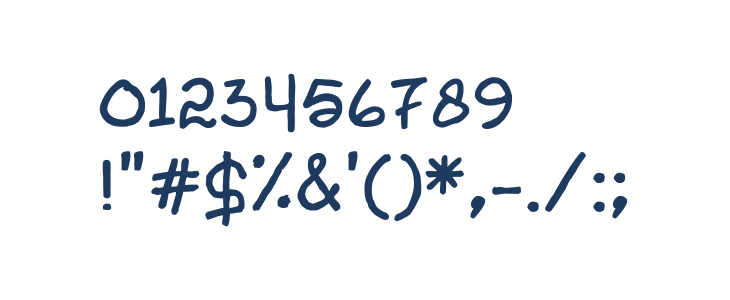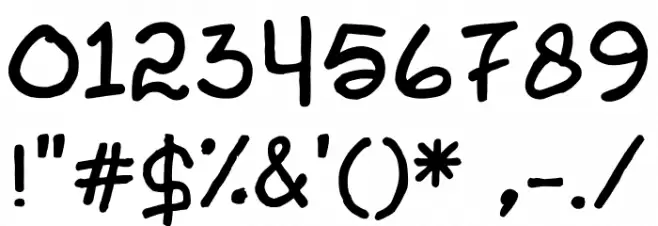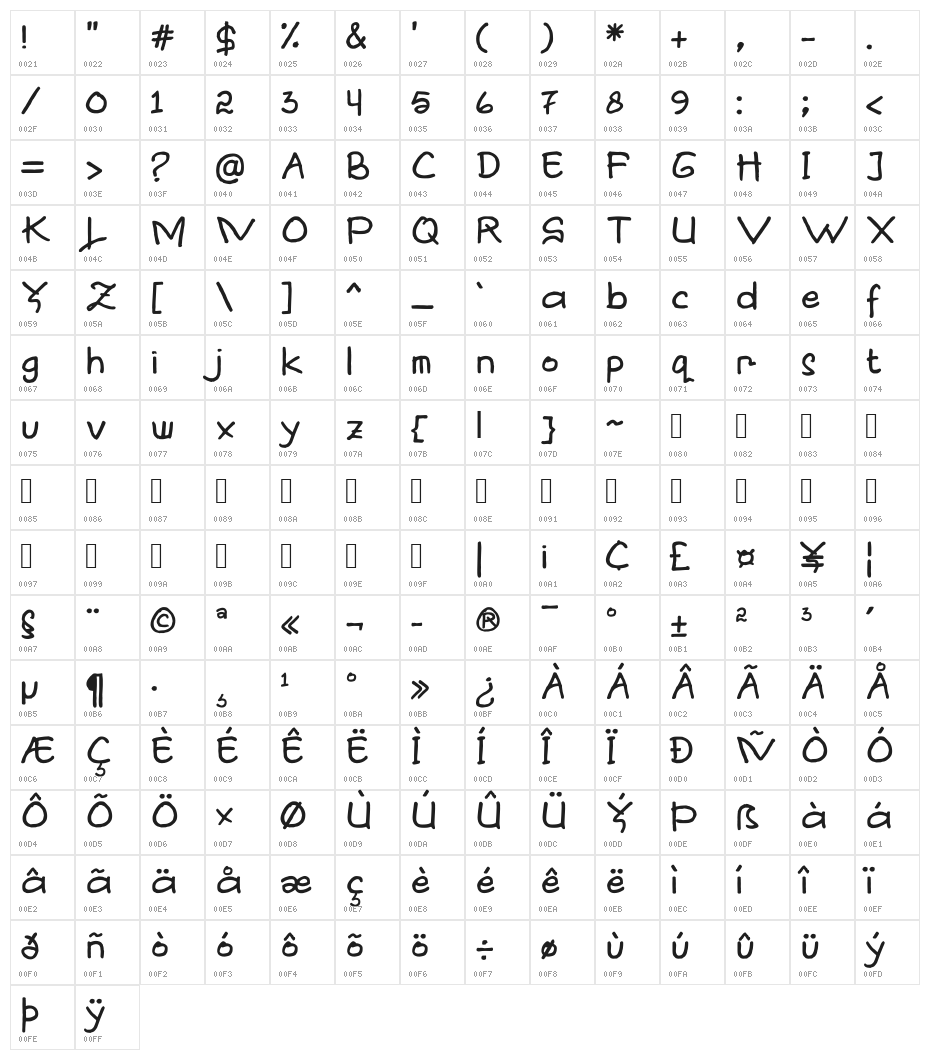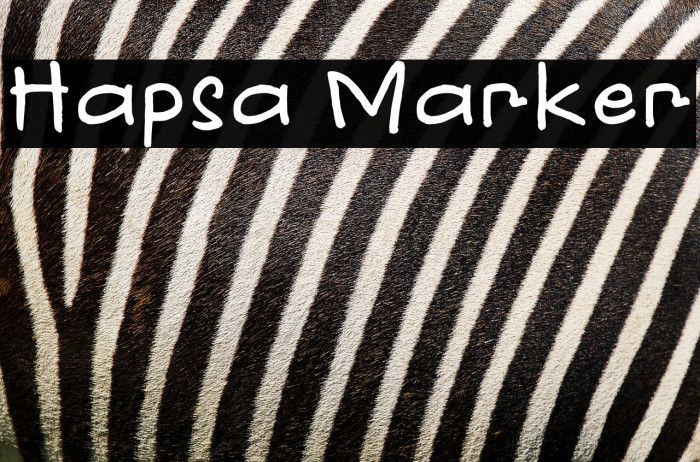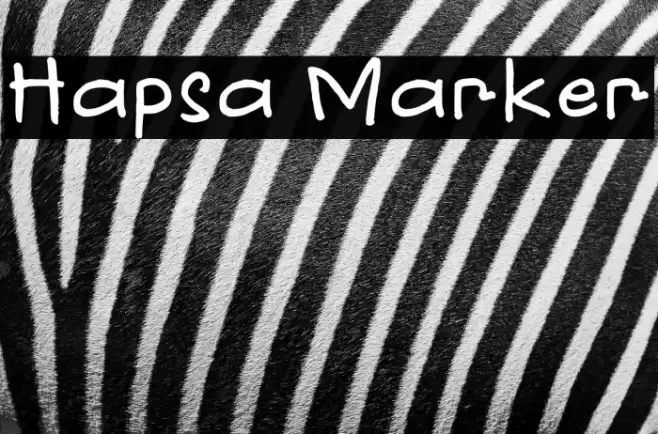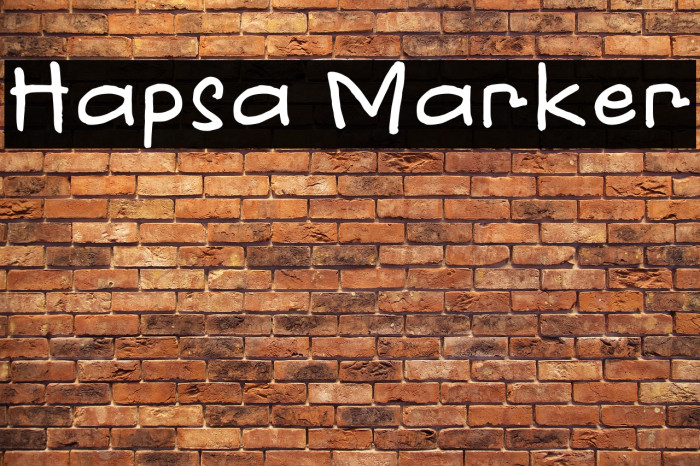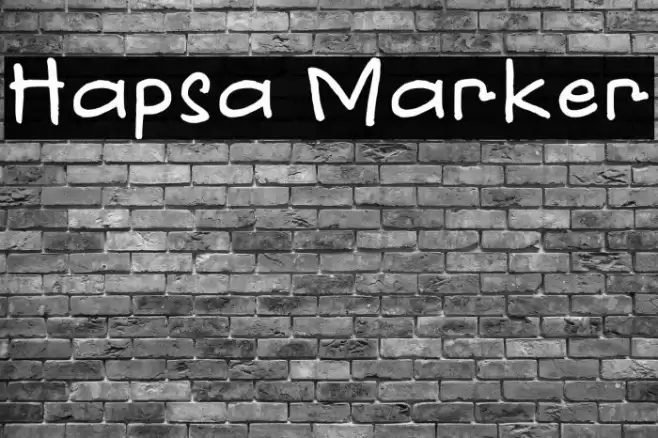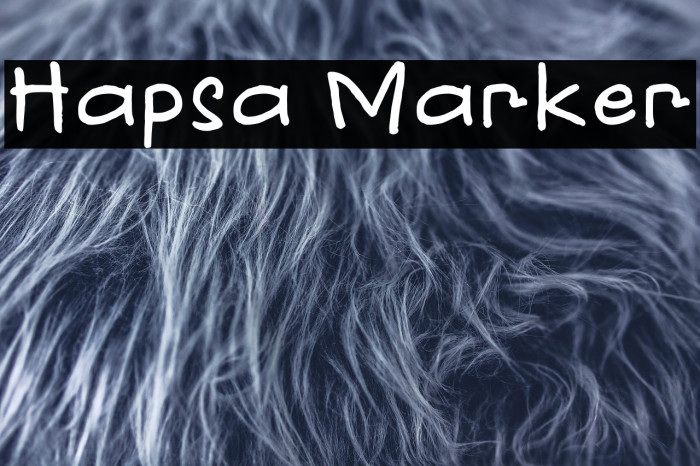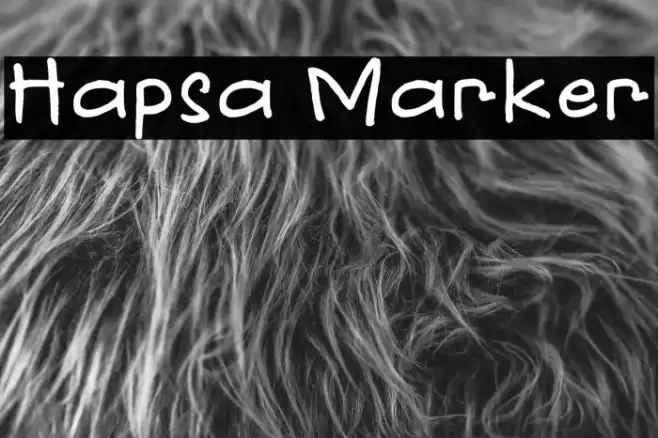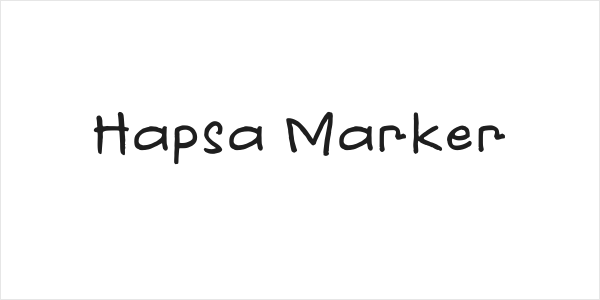
Hapsa Marker Font
Hapsa Marker Description
This font exudes a playful and casual vibe, reminiscent of hand-drawn marker strokes. The characters are slightly irregular, giving them a lively and informal appearance. The uppercase letters are bold and prominent, while the lowercase letters maintain a consistent flow, enhancing readability. Numbers and special characters follow the same handwritten style, adding to the cohesive look. The overall design is approachable and friendly, making it ideal for projects that require a personal touch.